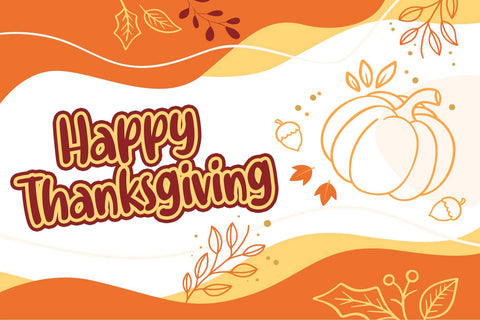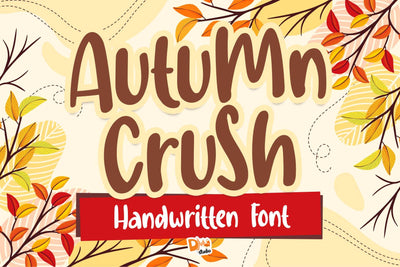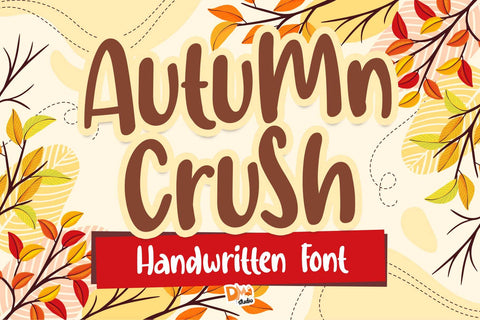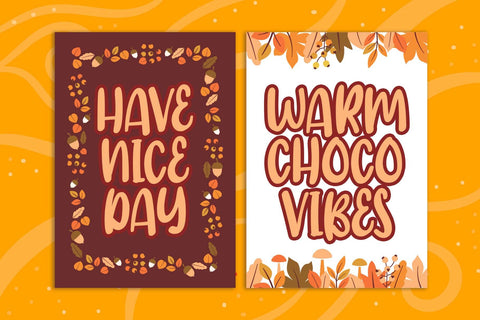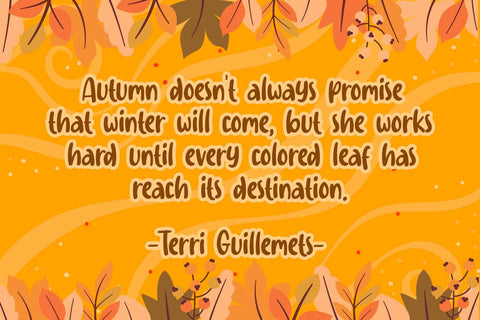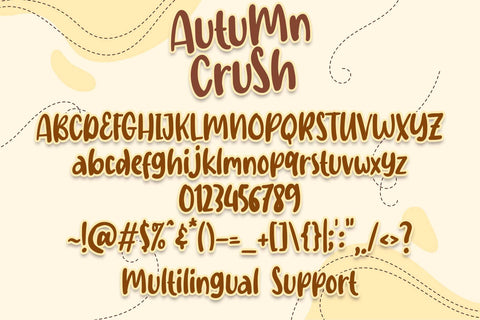
Autumn Crush Font
Embrace the cozy and nostalgic vibe of the Autumn Crush Font. This versatile typeface brings warmth and character to your designs, making it ideal for autumn-themed projects, invitations, posters, and more. With its rustic charm and unique letterforms, the Autumn Crush Font captures the essence of fall, adding a touch of seasonal magic to your creative endeavors.
- Rustic and Nostalgic Design: The Autumn Crush Font boasts a rustic and nostalgic design, evoking the charm of autumn landscapes and cozy vibes.
- Versatility in Application: Perfect for a range of design projects, from autumn invitations to rustic-themed posters, adding a seasonal touch to your creations.
- Uppercase and Lowercase Letters: Both uppercase and lowercase letters are included, offering creative flexibility in your designs.
- Punctuation and Symbols: A comprehensive set of punctuation marks, numerals, and symbols for consistent and versatile use.